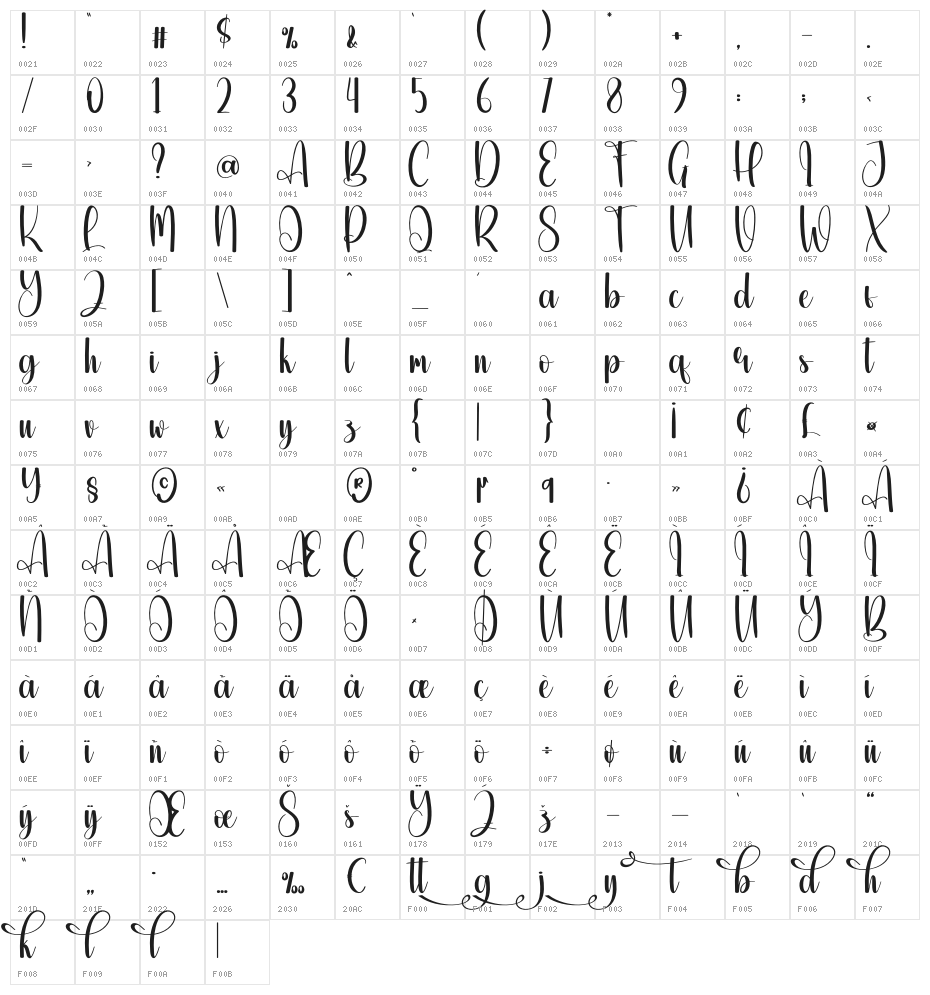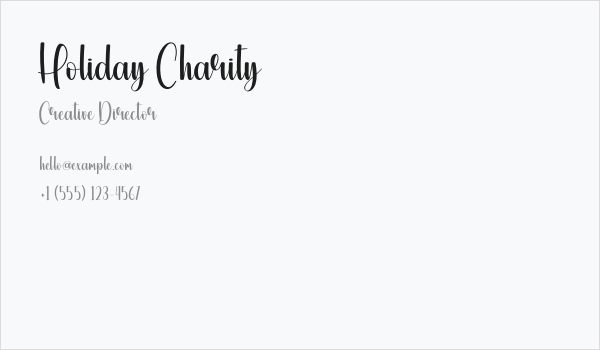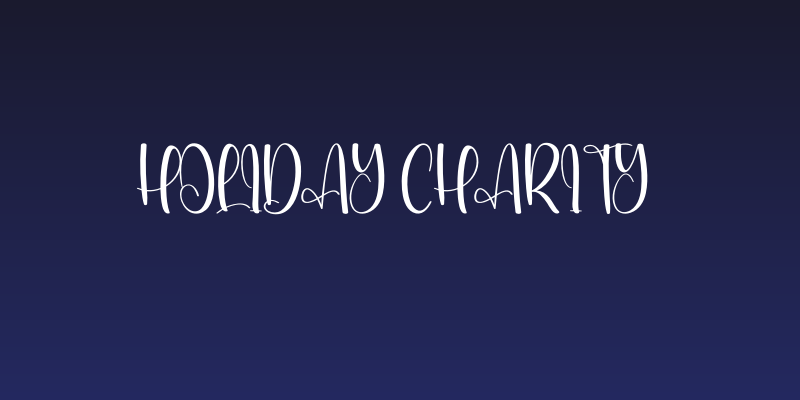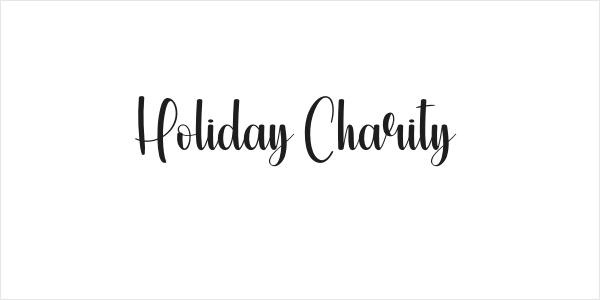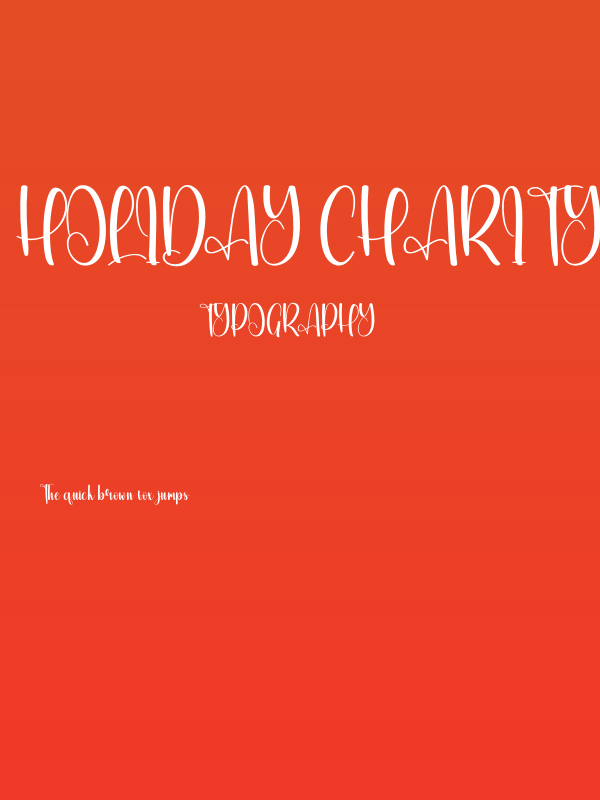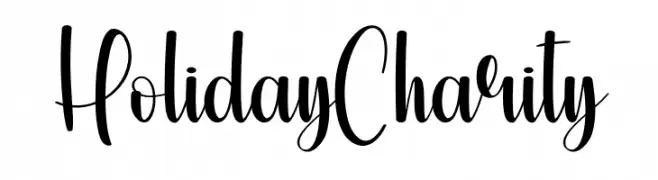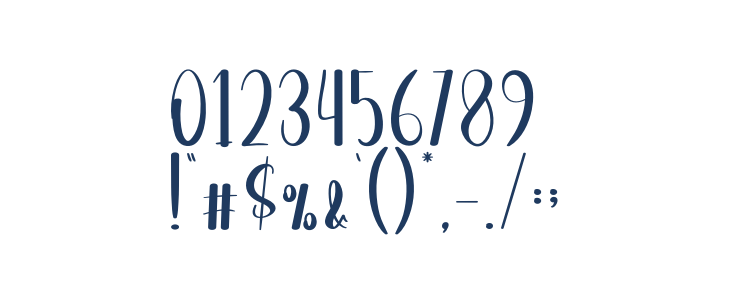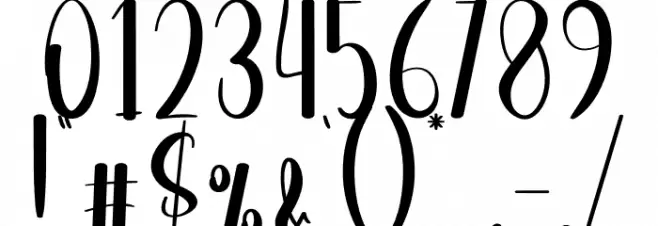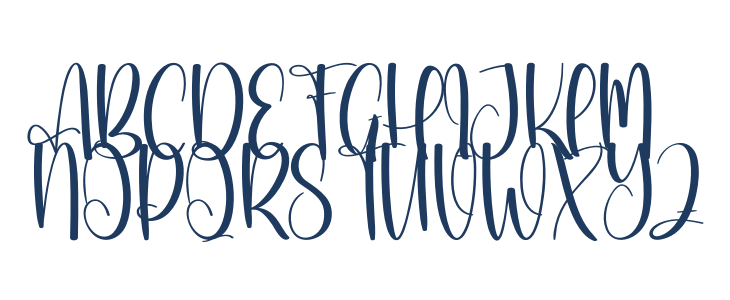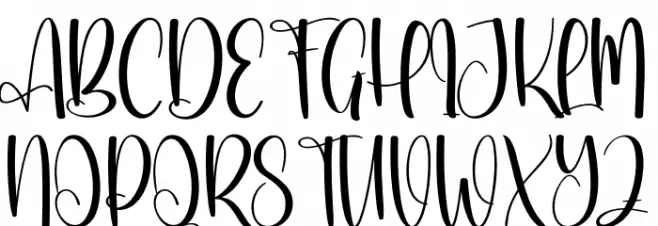
Holiday Charity Font
Holiday Charity Description
A playful, decorative script font with tall, narrow letterforms and whimsical swashes, especially prominent in uppercase characters. The lowercase letters are more straightforward but retain a hand-drawn, casual feel. The numerals and punctuation are consistent with the overall style, featuring exaggerated loops and curves.
| Overall Style | Decorative, Playful, Handwritten |
| Use Case | Headlines, Invitations, Logos, Decorative text |
| Proposed Projects | Greeting cards, holiday invitations, charity event posters, branding for creative businesses, social media graphics. |